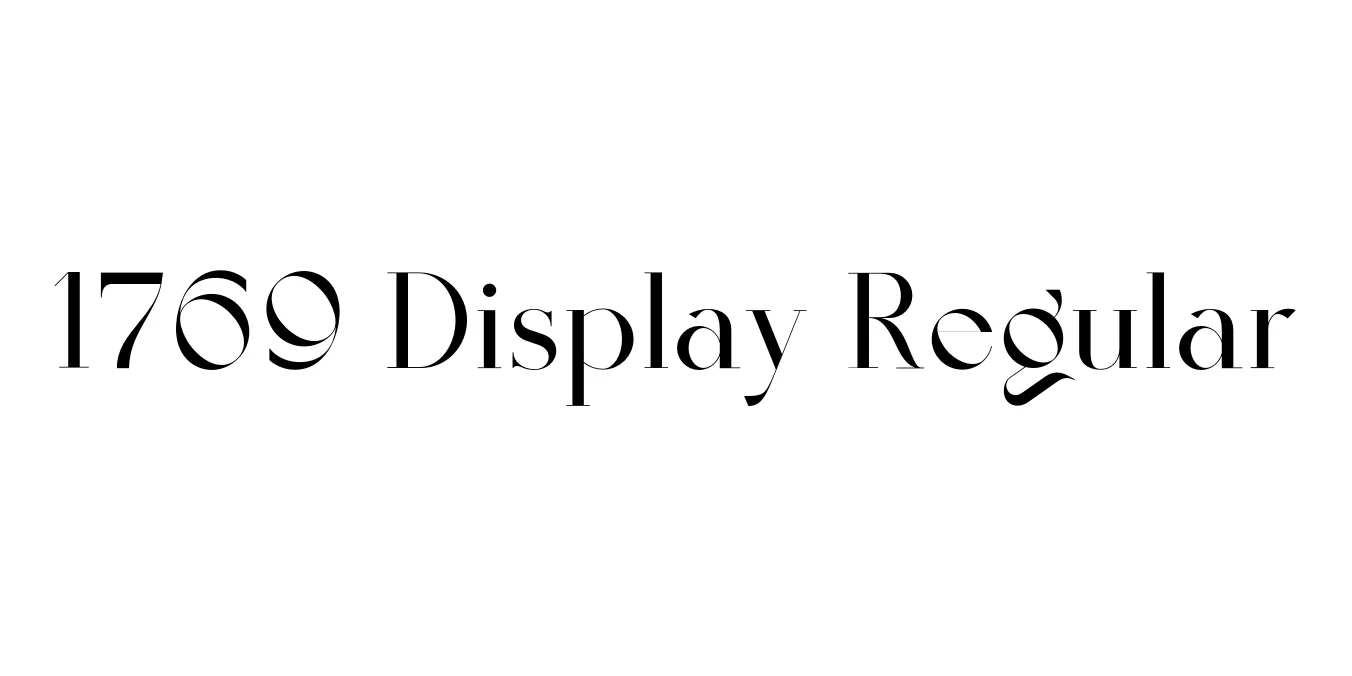
1769 Display Regular
Designed by Alexandre Saumier-Demers
1769 Display Regular is a sophisticated serif typeface that draws its primary inspiration from the transitional and neoclassical typographic styles of the late 18th century. It pays homage to the refined aesthetics of the Enlightenment era, specifically the works of John Baskerville and Pierre-Simon Fournier. The typeface captures the moment in history when printing technology allowed for sharper contrasts and more geometric precision, resulting in a design that feels both historically grounded and digitally crisp.
This specific display weight is meticulously optimized for large-scale applications, emphasizing sharp hairlines and delicate serifs that would disappear at smaller sizes. Its vertical stress and elegant proportions make it an ideal choice for high-end editorial layouts and luxury identity systems. By balancing the warmth of traditional pen-formed shapes with the cold discipline of neoclassical architecture, 1769 Display Regular offers a timeless sense of authority and grace.
1769 Display Regular Best Uses
Perfect for high-impact headlines in fashion and lifestyle magazines.
Ideal for creating sophisticated logos and brand identities for premium products.
Excellent for large-scale typography where the sharp hairlines can be fully appreciated.
Adds a classical and authoritative touch to literary and historical book jackets.